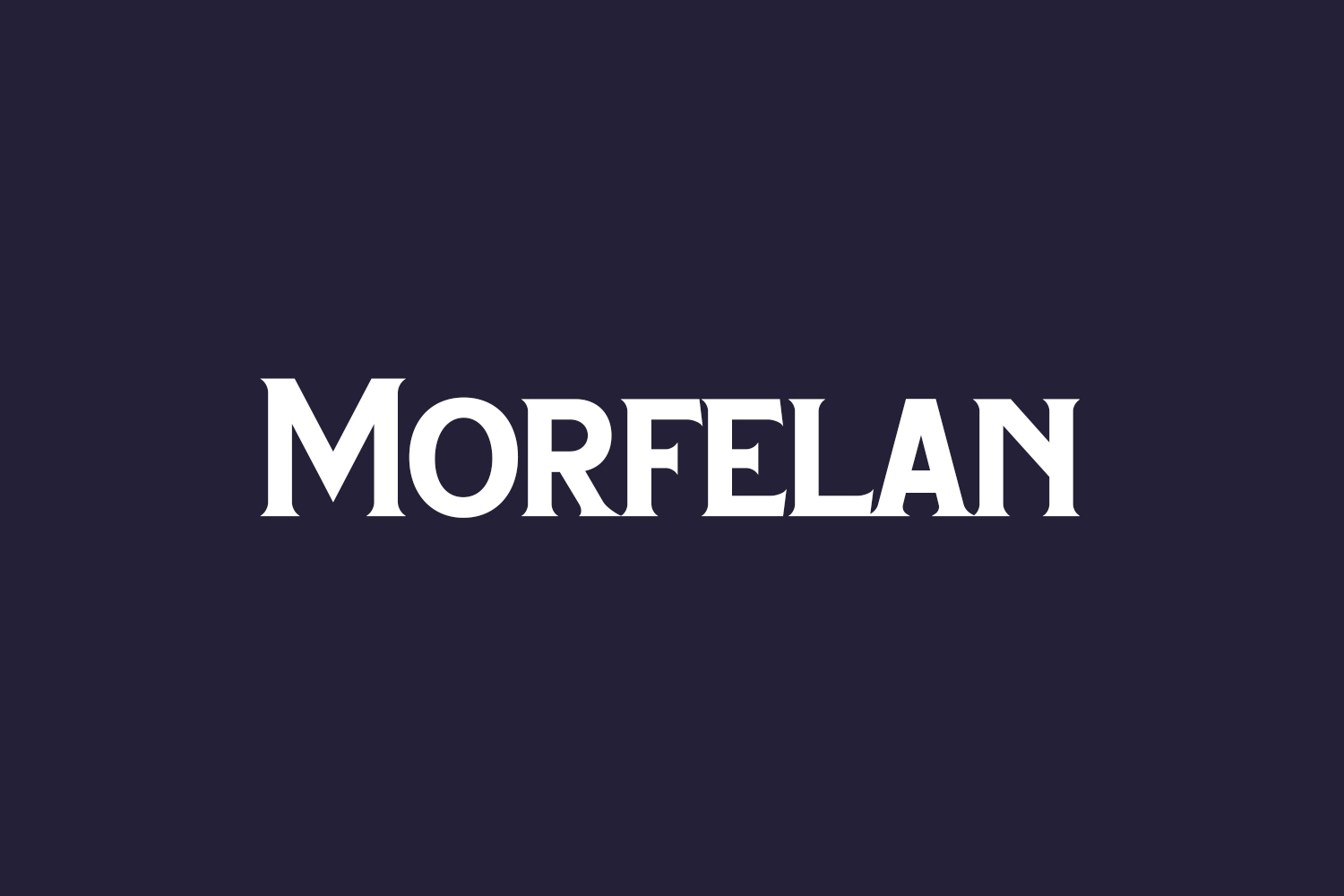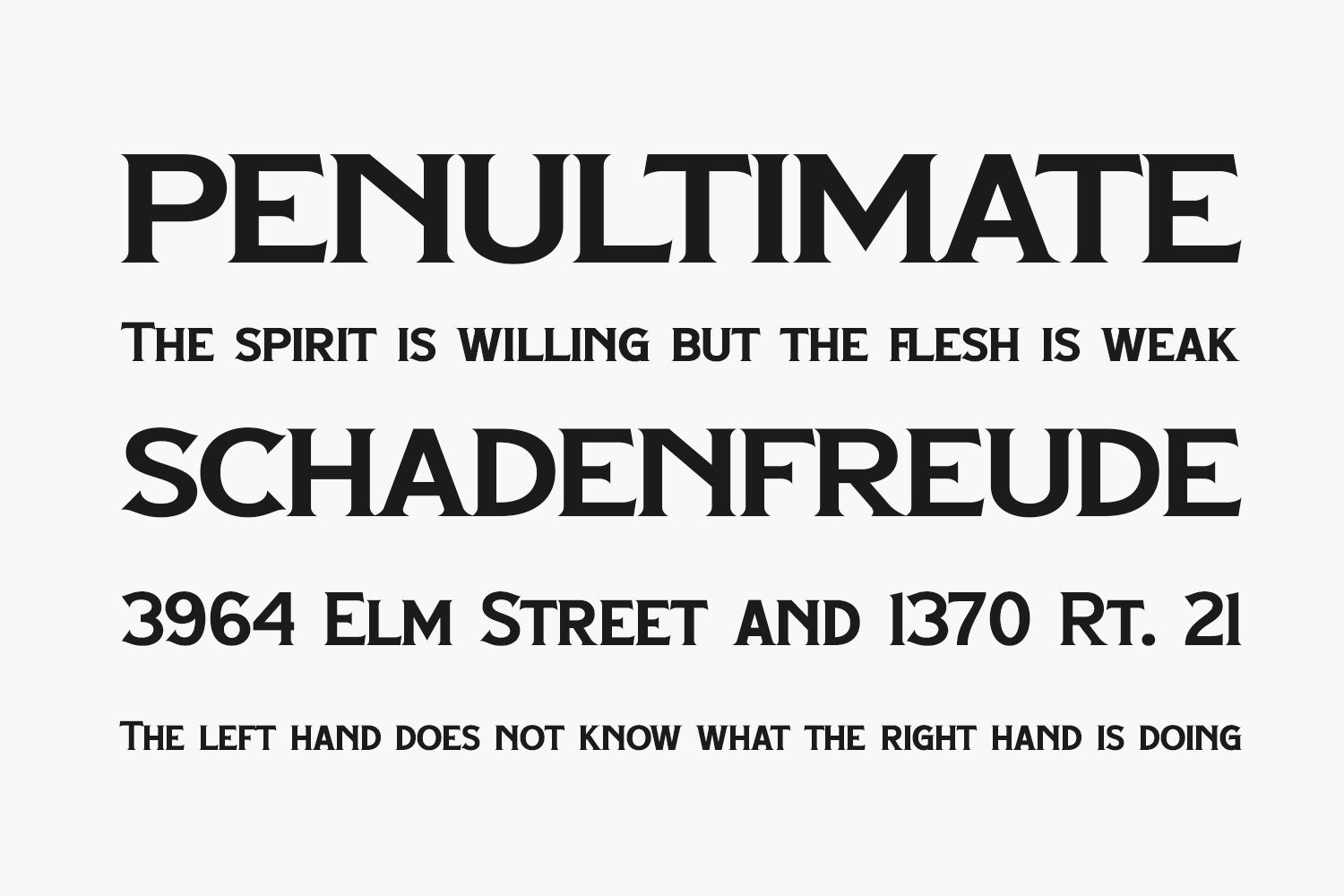
Experience the contemporary allure of Morfelan Free Font, a captivating serif font. Incorporate it into your creative concepts with confidence, and prepare to be astounded by the exceptional results it produces. Morfelan Free Font is free for personal use only. Please purchase the full version for commercial use.